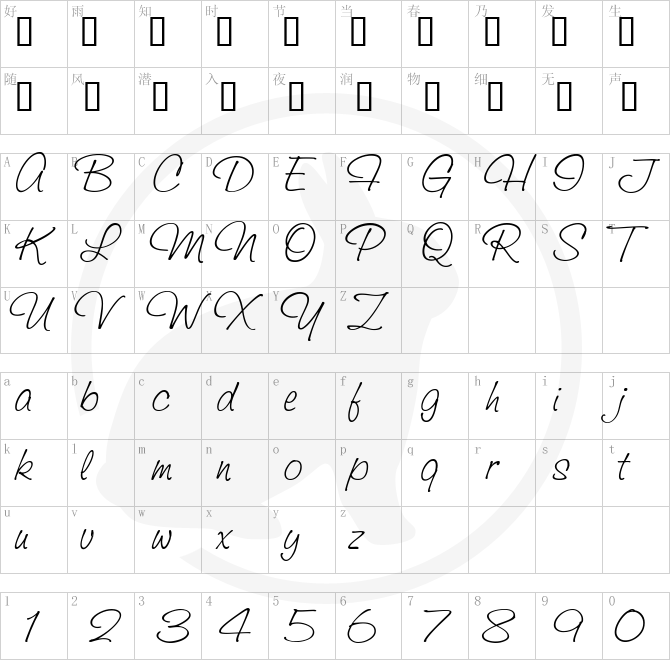
- Font Name:Saginaw
Saginaw-Medium.ttf is a very beautiful artistic font, Saginaw-Medium.ttf is widely used in the design and printing of various books and pictures,Saginaw-Medium.ttf has a strong visual impact,Saginaw-Medium.ttf is a commonly used font in newspapers, magazines and books, and is used in posters, e-commerce Poster design, store design, logo design, font design and other fields.Saginaw-Medium.